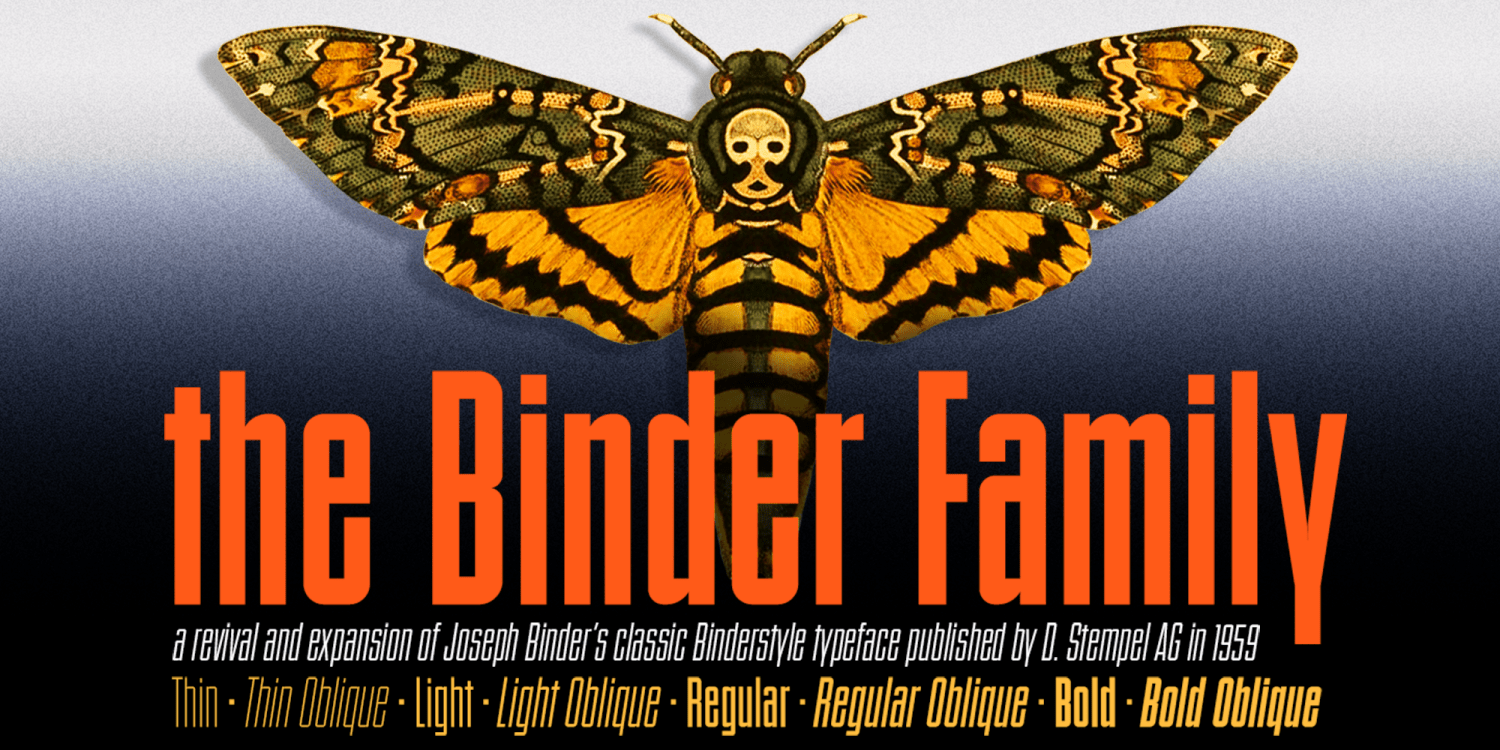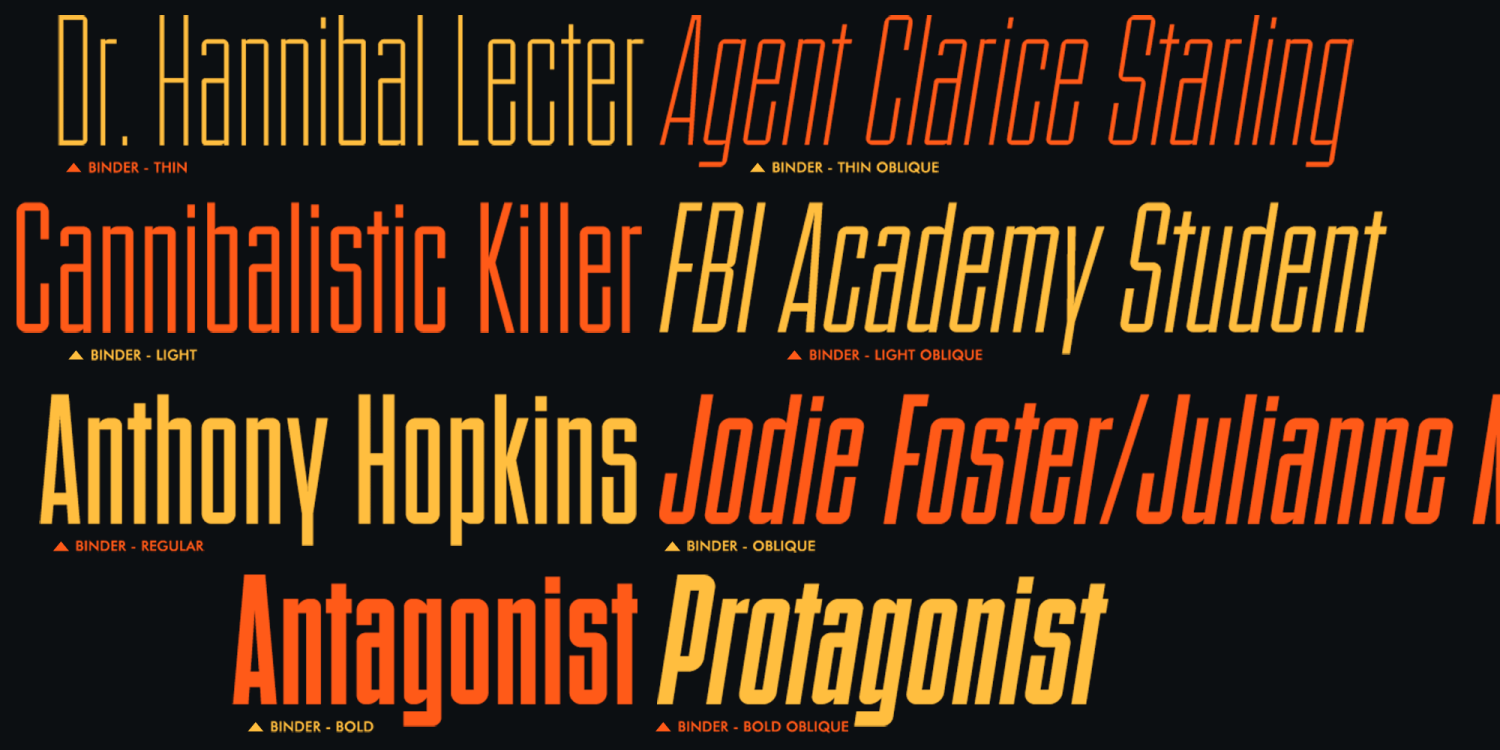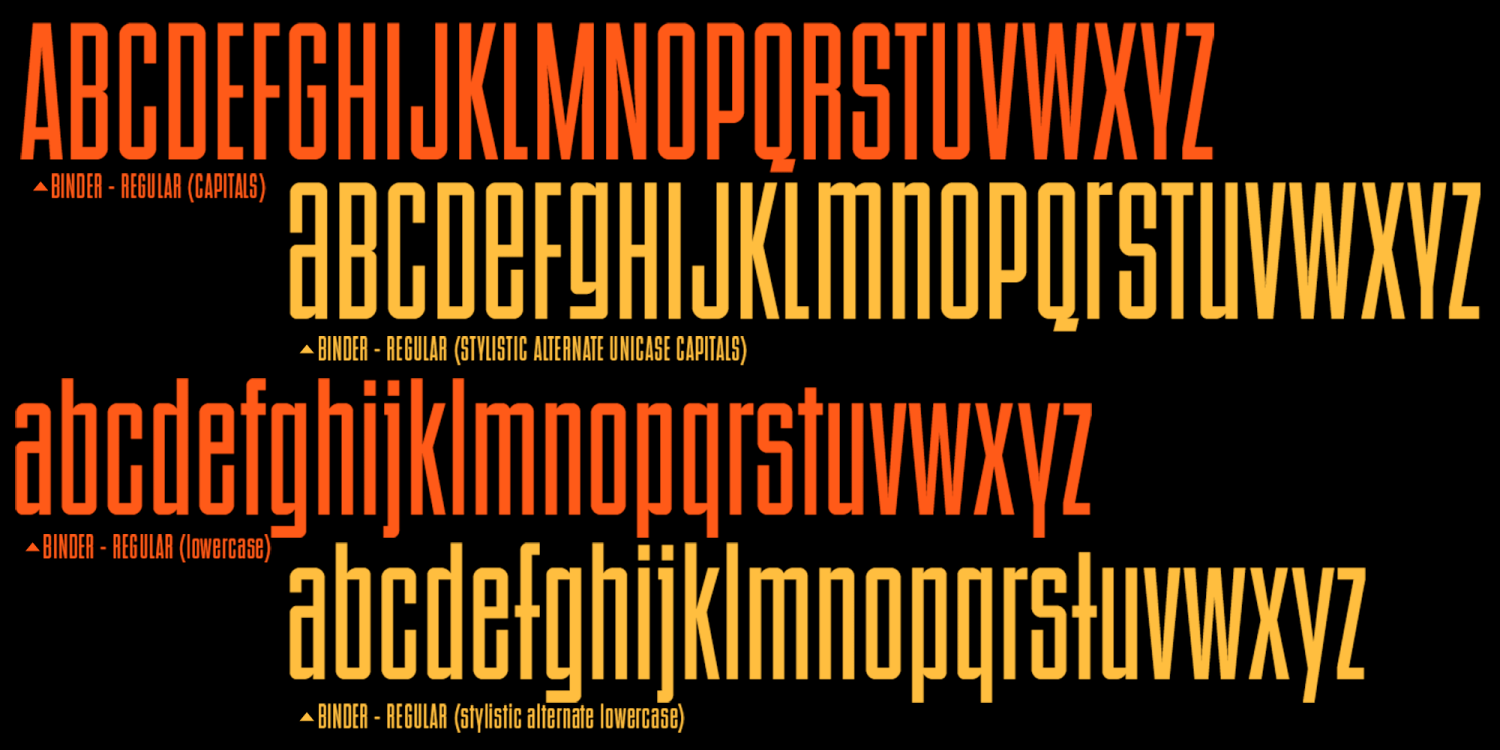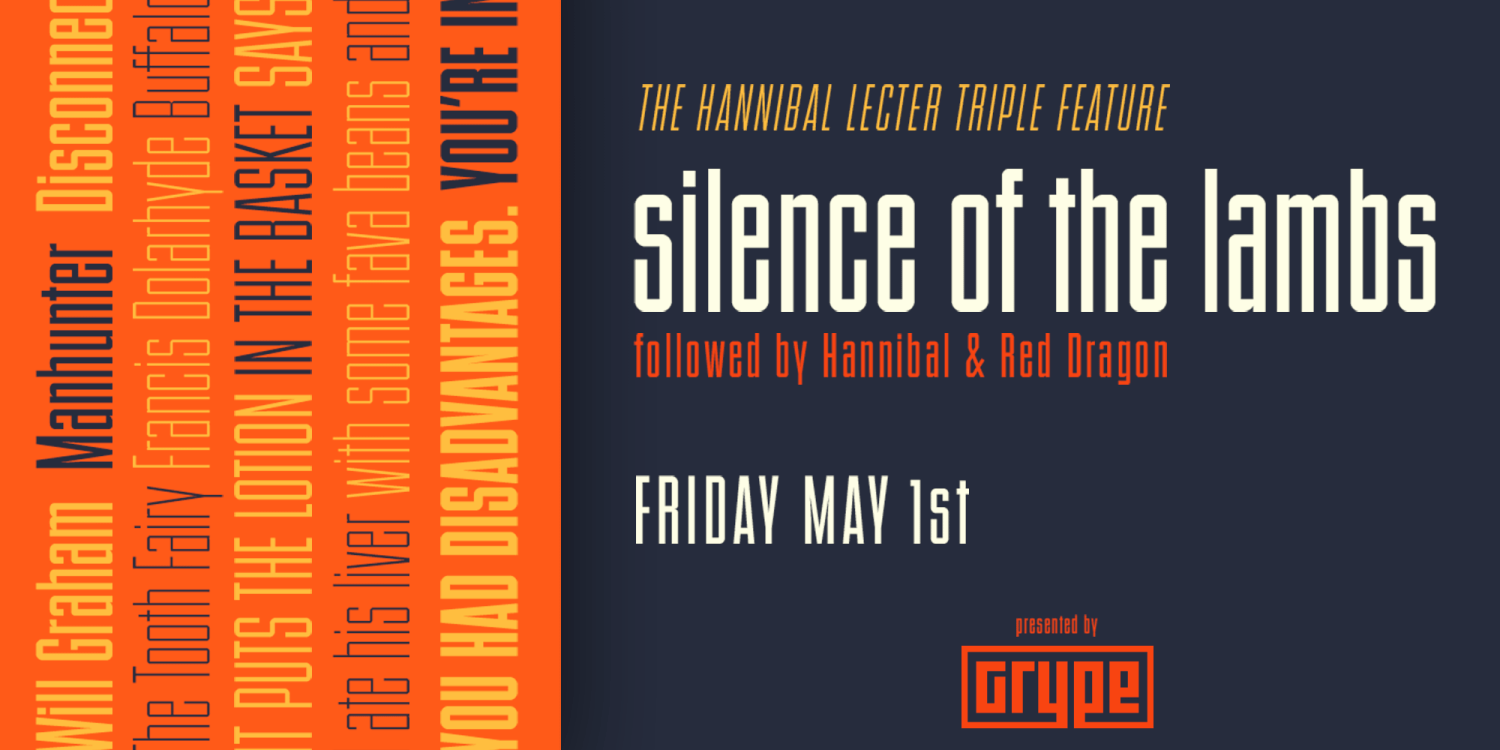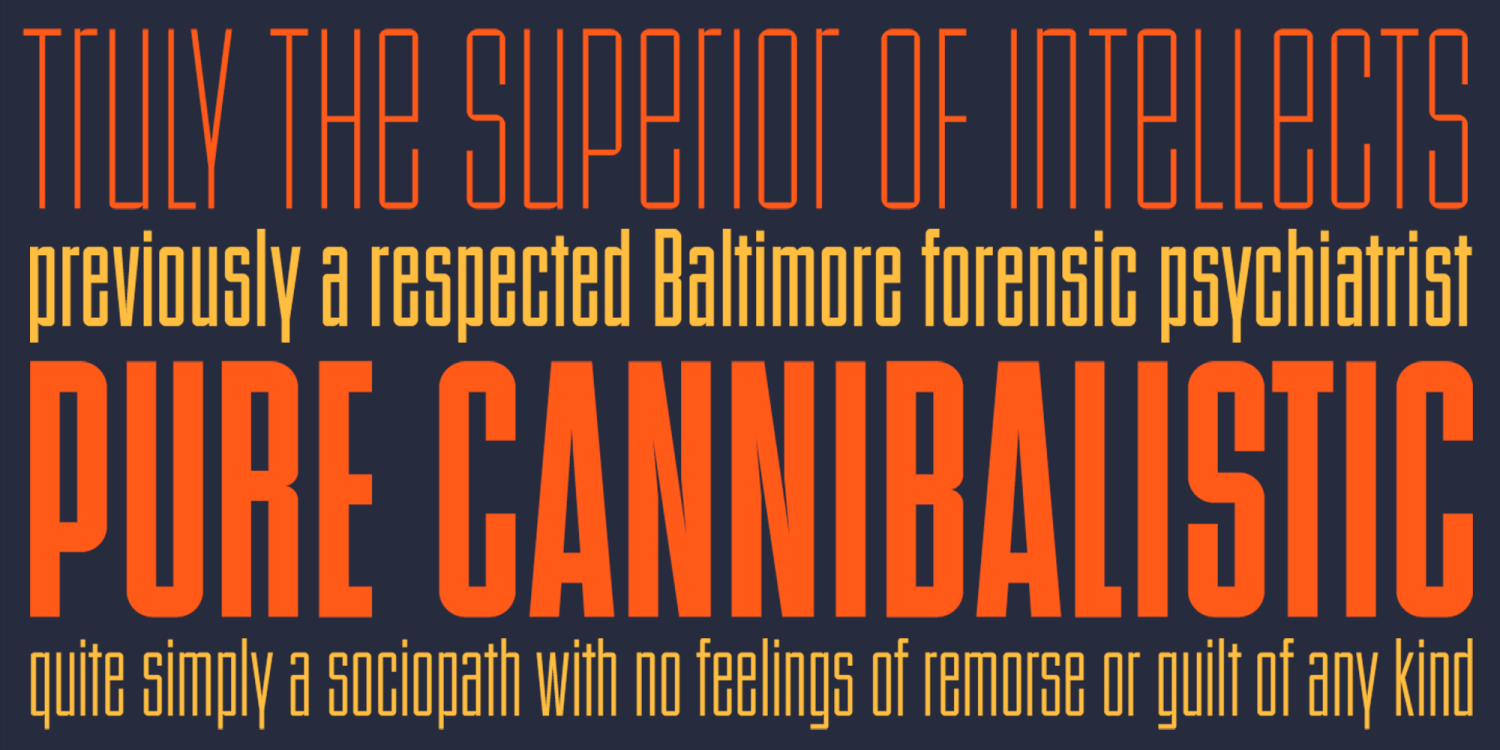
Binder
Font Family by Grype
Our Binder Family is a revival and expansion of Binder-Style, a typeface designed by Joseph Binder and released by D. Stempel AG in 1959. It originally was a single weight. In later film type adaptations, a bold style, and an outline with drop shadow style were made available. However, this typeface never really had a true sense of family or larger language compatible character set.
The original Binder-style typeface found revived popularity with its super condensed style when it appeared on the movie poster for "Silence of the Lambs". It was always a disappointment to me how this typestyle had never gained more traction in use.
And so, many years later, we decided to revive the original typestyle, and expand it with a range of weights and obliques to pair with those weights. We've moved most of the unusual lowercase forms to a Stylistic Alternates feature, along with unicast alternates for the Capitals.
The family includes a full standard character set with expansive international support of latin based languages, and 4 weights jumping from Thin to Bold, along with 4 accompanying obliques. This family is ready for you to eat it up with a nice glass of Chianti.
• 538 glyphs per style - including Capitals, Lowercase, Numerals, Punctuation, and an extensive character set that covers multilingual support of latin based languages.
• 4 weights: Thin, Light, Regular, & Bold.
• Accompanying Obliques with each weight/width style.
• You're in need of a stylish condensed font with a variety of weights and obliques for your designs
• You're a fan of the typographic works of Joseph Binder, but wish there was more to them
• You love the style of Agency and Bank Gothic, but want something uber-narrow
• You are desperate to recreate the movie poster from Silence of the Lambs